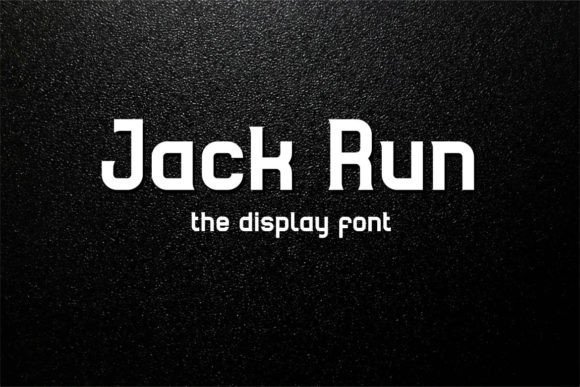
Unlock the Power of Creativity with the Jack Run Font
Have you ever found yourself staring at a blank canvas, unsure of where to begin? The blank page can be intimidating, but with the right tools, anything is possible. For designers, the perfect font can be the spark that sets the creative process in motion.
Enter the Jack Run Font, a modern and bold display font that’s sure to take your designs to the next level. Crafted with precision and detail, this font is a valuable addition to any designer’s library. Whether you’re working on a bold logo or a striking headline, the Jack Run Font has the potential to elevate your creation and make it truly unforgettable.
Key Features of Jack Run Font
- Font Family: Jack Run Font is a sans-serif font family designed for use in digital and print media.
- Unique Characteristics: Features a unique blend of modern and sporty aesthetics, with clean lines, geometric shapes, and a dynamic feel that’s perfect for action-packed and energetic designs.
Designer Review: Jack Run Font
As a designer, I was excited to test the Jack Run Font and see how it performs in various projects. Here’s my honest review.
- Unique and modern design: Jack Run Font has a distinctive look that can add a touch of freshness to any project.
- Highly legible: The font is designed to be easy to read, making it perfect for body text and headings.
- Good for digital use: Jack Run Font is optimized for digital use, so it looks great on screens and in mobile apps.
- Limited character set: The font has a relatively small character set, which may limit its use in certain projects.
- No italics or bold options: Jack Run Font doesn’t come with italic or bold versions, which may require additional styling.
- Not suitable for print: While the font looks great on screens, it may not be the best choice for print projects due to its digital optimization.
Overall, Jack Run Font is a solid choice for digital projects that need a modern and legible font. While it has some limitations, its unique design and high legibility make it worth considering for the right projects.
Tips for Getting the Most Out of Jack Run Font
Use Jack Run Font for titles, headings, and emphasis to add a touch of elegance and sophistication to your designs.
Experiment with different font sizes and colors to create visual hierarchy and balance in your designs.
Use Jack Run Font for:
• Titles and headings in brochures, flyers, and posters.
• Emphasis in text-based designs, such as resumes and business cards.
• Branding and logo designs to create a unique and memorable identity.
Alternatives to Jack Run Font for Designers